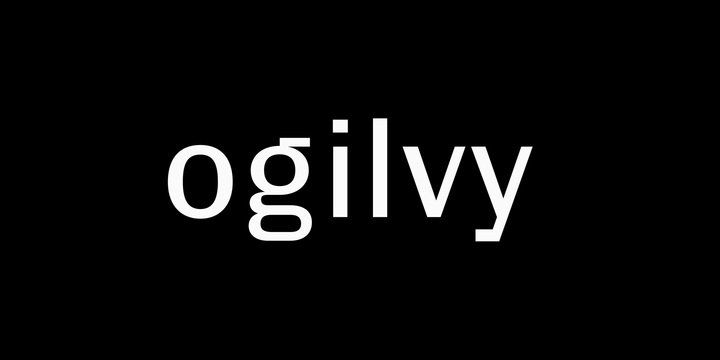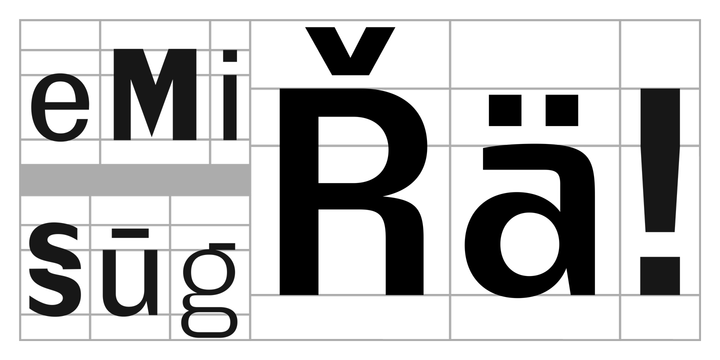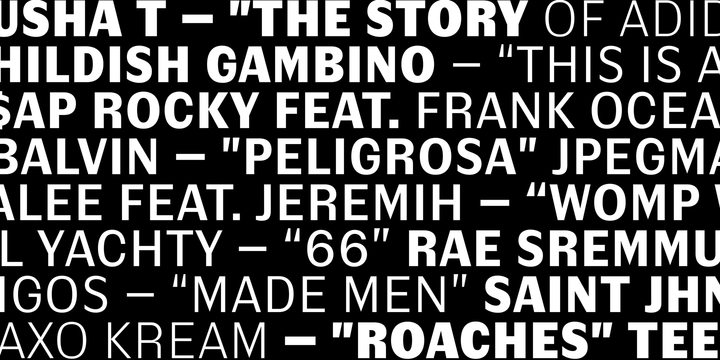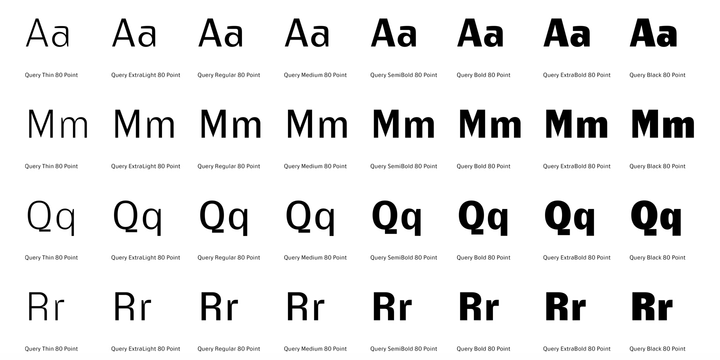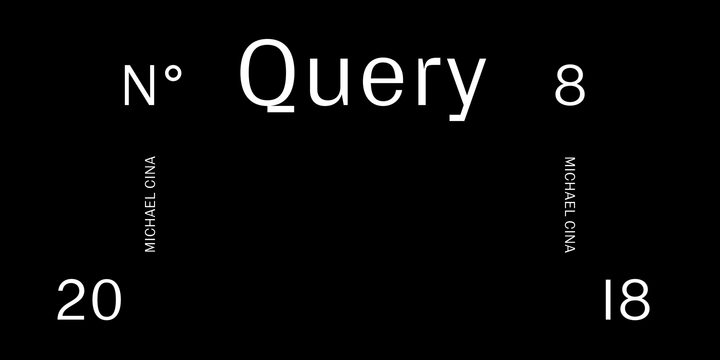
Query was born out of that lineage of experimentation and developing a voice within type. I wanted this typeface to have a strong personality but also give room for legibility.
The typeface was inspired from people like Karl Heinz, to Hamiltons Class L fonts, and even civil rights posters from 1968.
My original intent was to make a single font that transformed the spirit of woodtype, but done in my voice today.
A college compared it to a modern Trade Gothic, which I never envisioned, but feel it is an accurate observation.
More As I continued to refine the work, I made sure that the personality, tone and voice was still there but also refining it so that when used, it was legible but still unique to anything I have seen.
I included over 400 glyphs that support many languages and also included three levels of stylistic sets for extra use and style.
Query is as fun to use as it is to look at.